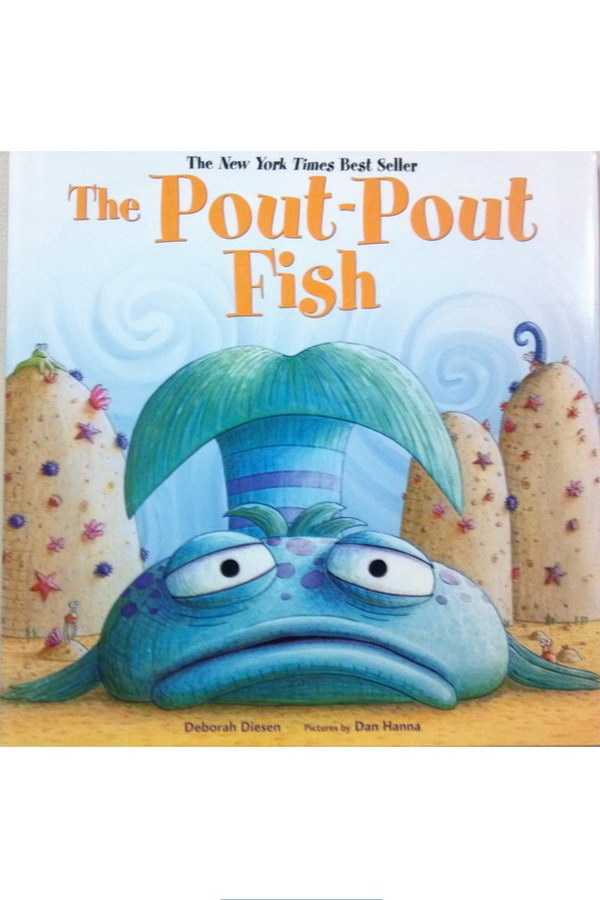
The Pout-Pout Fish Font
BookThe Pout-Pout Fish is a children's book written by Deborah Diesen and illustrated by Dan Hanna. The story follows a fish named Mr. Fish who is known for his pouty face and negative attitude.
The book title "The Pout-Pout Fish" is set in Spumoni, a fancy font featuring jiggly letters released by LetterPerfect. You can view more details and download the font here.